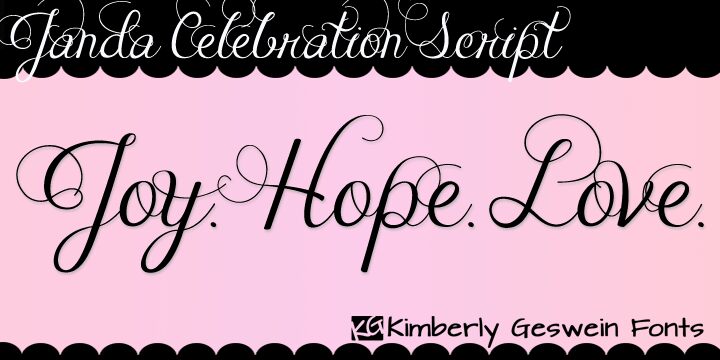
Janda Celebration Script by Kimberly Geswein is a free calligraphic script with tall, sweeping letters and extravagant loops. Fine hairlines curl far beyond the main strokes, giving the lettering an airy, flourished silhouette. The movement is formal but exuberant.
Wedding invitations are its clearest setting, with the long swashes turning names and headings into part of the decoration. It also suits anniversary stationery, event signage, and boutique packaging aimed at clients who favor ornate, romantic lettering.